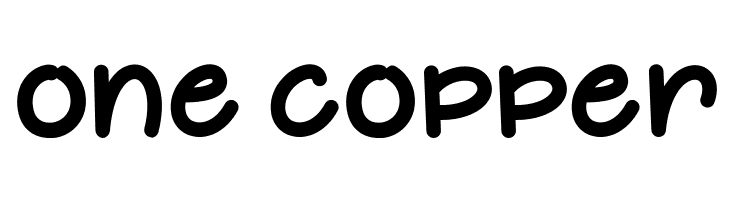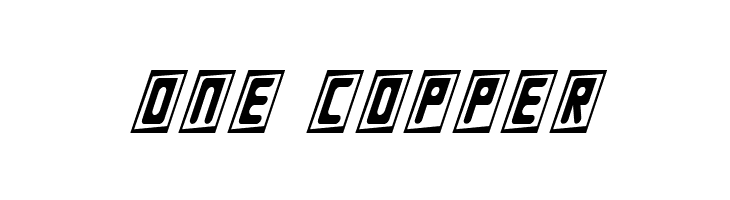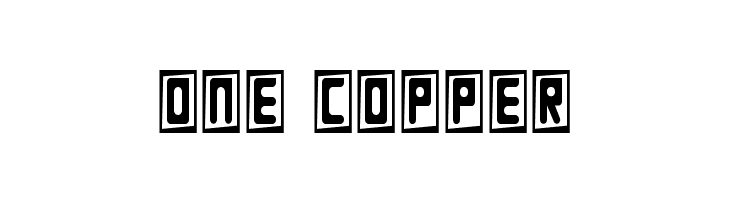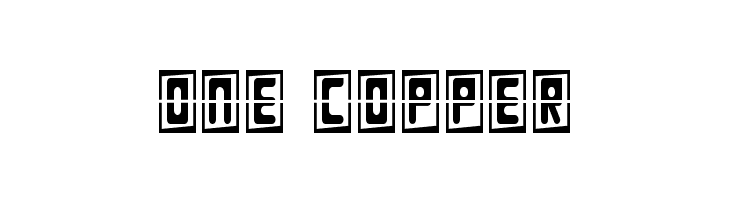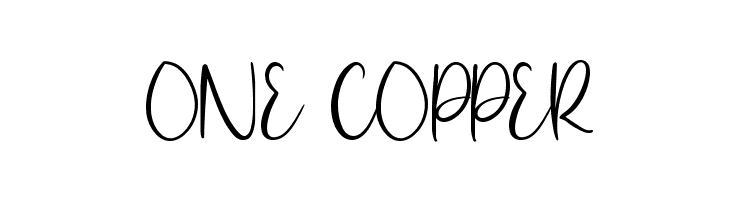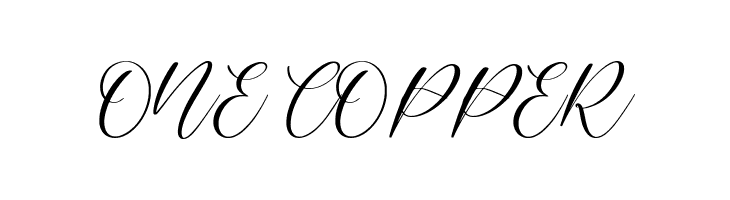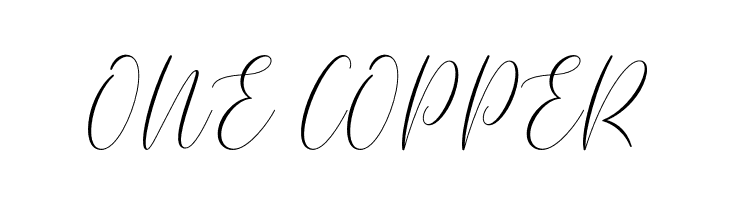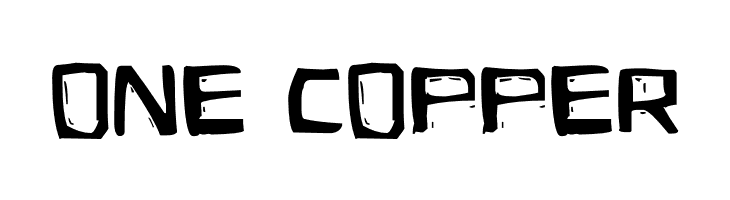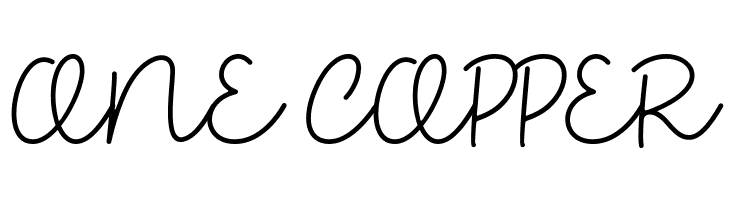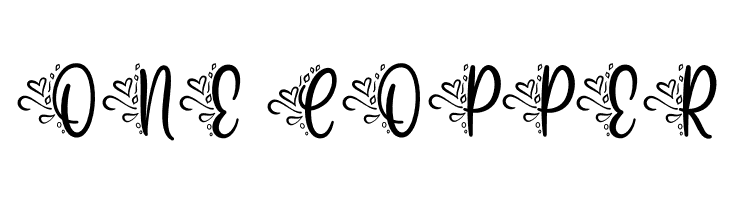
A dynamic and elegant script font with flowing, cursive letterforms.
Bold, shadowed font with a modern, three-dimensional look.
A lively, flowing script font with bold, expressive characters.
A bold, expressive brush-style font with dynamic, hand-painted strokes.
A bold, decorative font with intricate line detailing and a modern twist.
A bold, decorative font with intricate patterns for eye-catching designs.
A bold, serif-inspired font perfect for impactful headlines.
Bold, playful icon-based font with food motifs.
An elegant script font with flowing, ornate swashes and high contrast strokes.
A playful and elegant handwritten font with flowing, connected letterforms.
A flowing cursive font with a natural, handwritten style.
A decorative serif font with intricate floral patterns integrated into each character.
A bold, hand-drawn font with a textured, woodblock-inspired style.
A graceful, cursive font with elegant, flowing lines.
A sophisticated script font with flowing, elegant letterforms.
Bold, enclosed uppercase letters with a playful, modern design.
A bold, italic font with geometric letters in tilted frames, exuding energy and modernity.
A bold, geometric font with a strikethrough effect and square framing.
A bold, distressed font with a rugged, industrial aesthetic.
A decorative, whimsical script font with floral motifs and a playful style.
A playful, bold font with rounded, thick strokes and a friendly appearance.
A bold, classic serif font with sharp, angular serifs and a strong presence.
A playful handwritten font with rounded, informal characters.